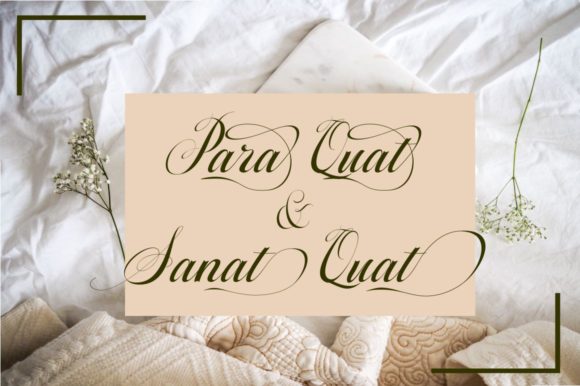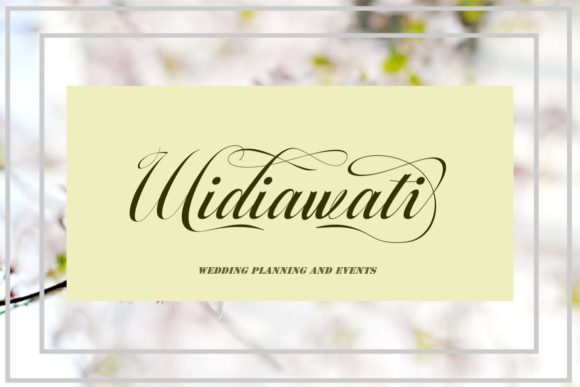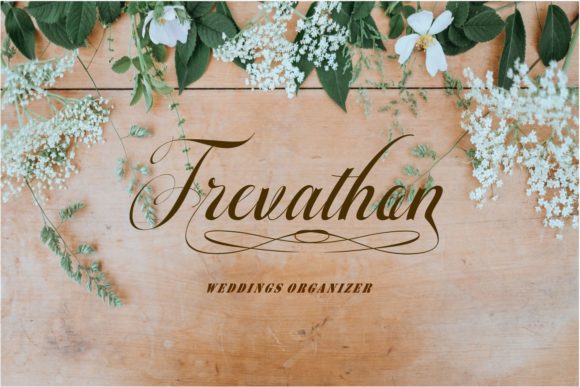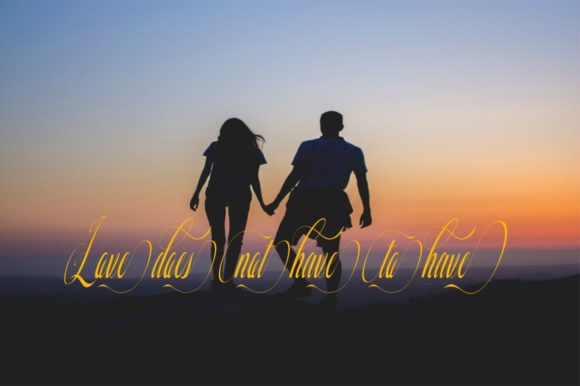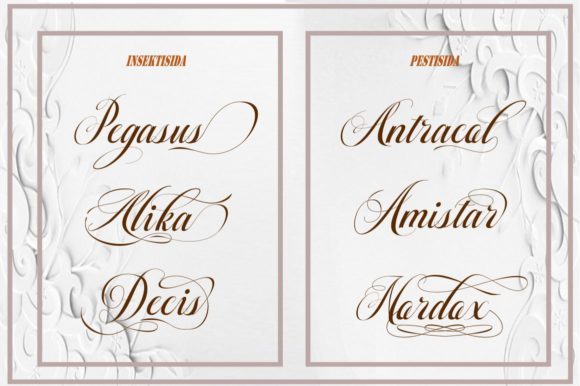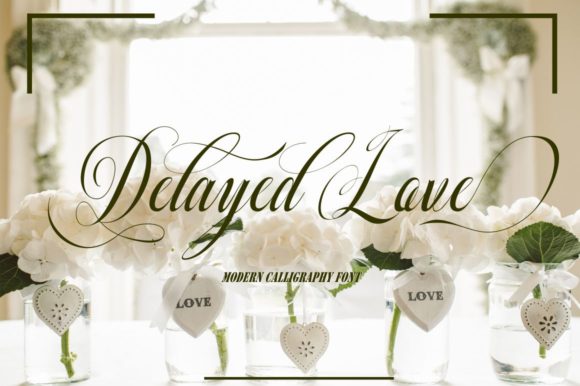
Discover the Enchanting Delayed Love Font: Elevate Your Designs with Effortless Charm
In the realm of typography, few fonts manage to capture the essence of romance and sophistication as elegantly as the Delayed Love Font. This beautifully crafted script font is not just a collection of letters; it’s an experience that brings an undeniable charm to any design project. Whether you’re a seasoned designer or a crafting enthusiast, Delayed Love is poised to become your go-to font for creating masterpieces that resonate with elegance and authenticity.
The Essence of Delayed Love Font
Delayed Love Font stands out in the crowded world of typography by perfectly merging sophistication with authenticity. Its script is effortlessly charming, making it an ideal choice for projects that demand a touch of elegance. From wedding invitations and romantic quotations to branding and advertising materials, Delayed Love brings a level of refinement that’s hard to match.
PUA Encoding: Unlocking Creative Potential
One of the key features that make Delayed Love Font exceptionally user-friendly is its PUA (Private Use Area) encoding. This means that accessing the font’s extensive range of magical and fancy glyphs, as well as its swashes, is incredibly straightforward. Designers and crafters can easily incorporate these special characters into their work, allowing for a high degree of customization and creativity. The PUA encoding ensures that you can unlock the full potential of Delayed Love, making your designs truly one-of-a-kind.
A Wealth of Special Features
Delayed Love Font is more than just a pretty script; it’s a comprehensive typographic solution designed to meet the needs of modern designers. In addition to its PUA encoding, the font features a wealth of special features, including:
• Alternate Glyphs: Providing variations for letters and symbols, allowing for diverse design options and the ability to add a personal touch to your work.
• Ligatures: These are special combinations of letters that join together to create a more fluid and natural look, perfect for creating elegant texts.
These features ensure that Delayed Love can be used across a wide range of projects, from digital content and branding to print materials and handmade crafts. The versatility of this font makes it an invaluable asset for anyone looking to elevate their design work.
Why Choose Delayed Love Font?
With so many fonts available, what sets Delayed Love apart? Here are a few reasons why designers and crafters are falling in love with this beautifully crafted script:
• Effortless Charm: The font’s natural elegance and charm make it perfect for projects that require a touch of sophistication.
• Ease of Use: Thanks to its PUA encoding and extensive special features, Delayed Love is incredibly easy to use, even for those new to typography.
• Versatility: Whether you’re working on digital projects, print materials, or handmade crafts, Delayed Love adapts beautifully, ensuring your designs always look their best.
Delayed Love Font is more than just a typography; it’s a tool for creativity, a means to transform your design projects into masterpieces. Its unique blend of sophistication, authenticity, and charm, combined with its user-friendly features like PUA encoding, alternate glyphs, and ligatures, make it an essential asset for designers and crafters alike. Whether you’re looking to create romantic wedding invitations, elegant branding materials, or simply add a touch of elegance to your digital content, Delayed Love is the perfect choice. Fall in love with its effortless charm and discover a new world of typographic possibilities.